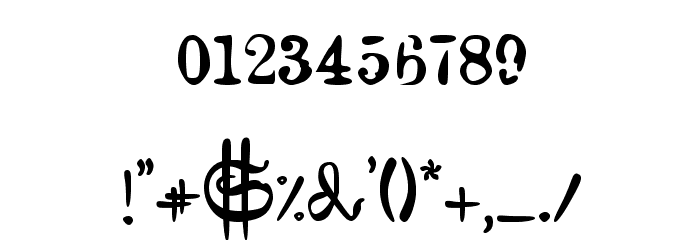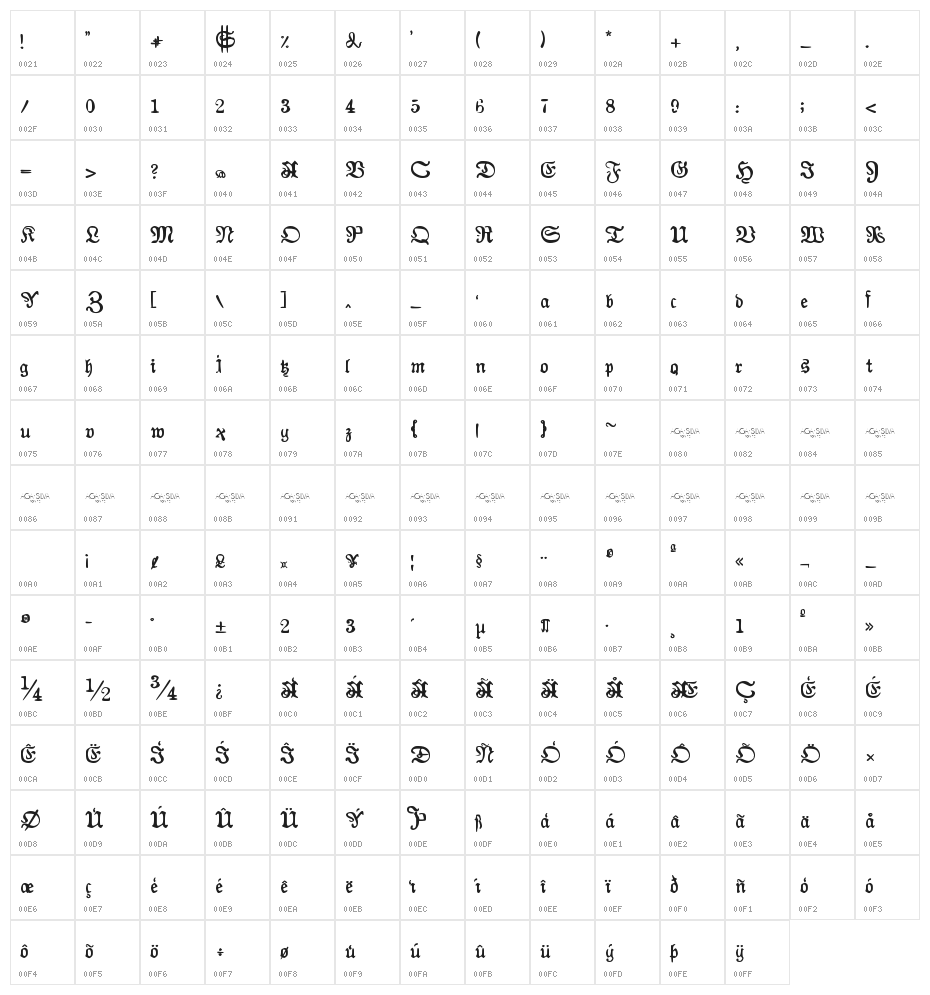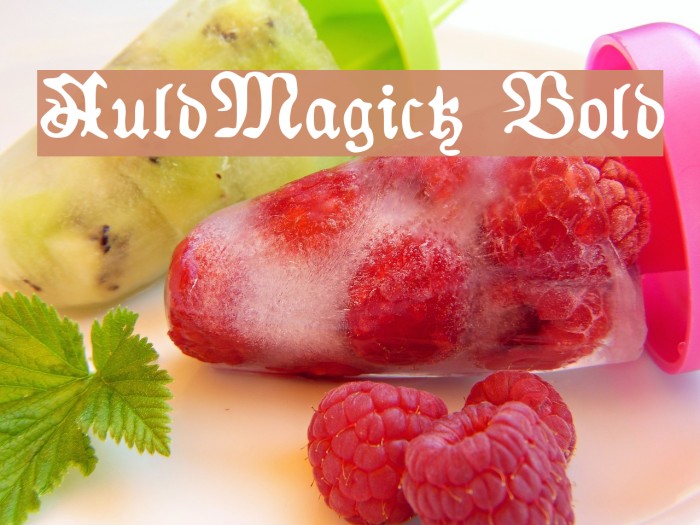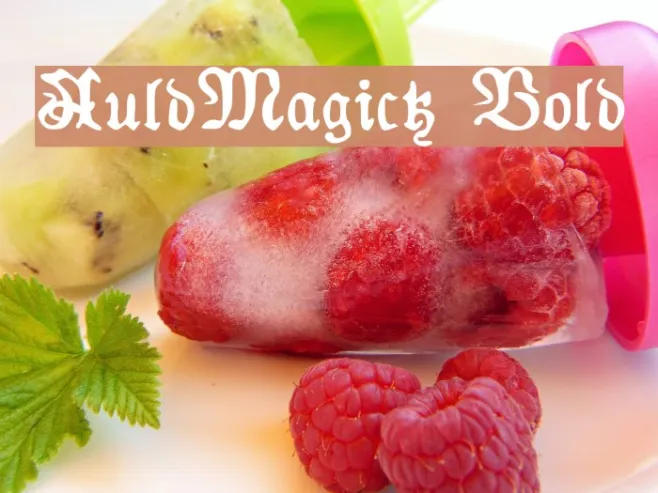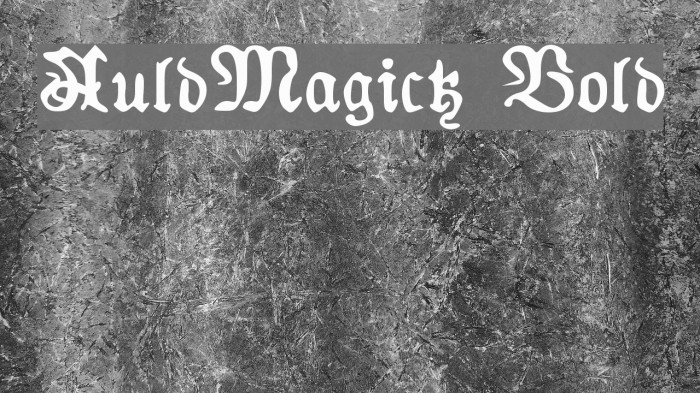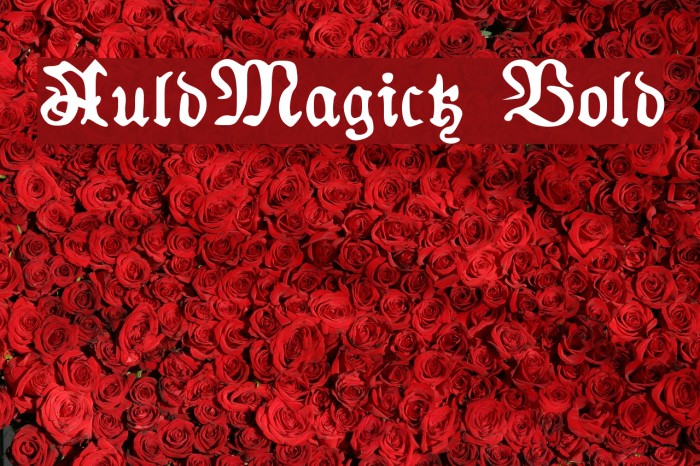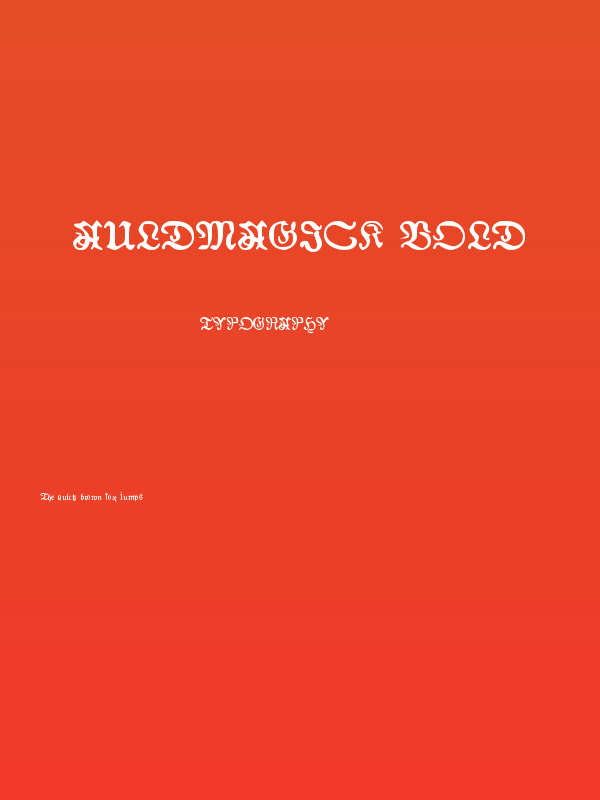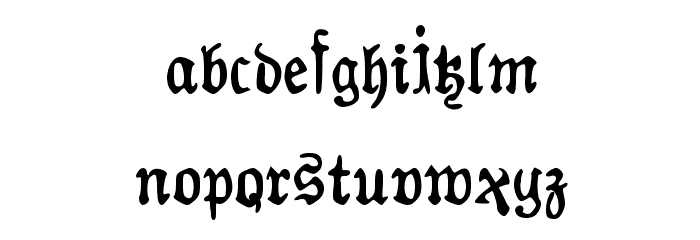
AuldMagick Bold Font
AuldMagick Bold Description
This font exudes a mystical and historical charm, reminiscent of ancient scripts and medieval manuscripts. The characters are adorned with intricate flourishes and curves, giving it a decorative and ornate appearance. The uppercase letters are particularly elaborate, with swirling elements that evoke a sense of enchantment. The lowercase letters maintain a consistent style, though slightly less embellished, ensuring readability while preserving the font's unique character. The numbers and special characters are designed to match the overall aesthetic, with similar decorative elements. This font is perfect for projects that require a touch of fantasy or historical elegance.
| Proposed Projects | Ideal for fantasy book covers, historical event invitations, themed posters, and decorative signage. |